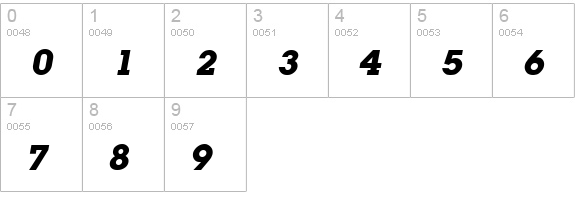
Lapland ExtraBold Italic is an extra-heavy, attention-grabbing, italic variant in the Lapland typeface family \xE2\x80\x94 well suited to high-impact headlines, posters, and bold branding.
Lapland ExtraBold Italic font is a bold and versatile typeface that exudes confidence and modernity. Its striking and dynamic design captures attention and makes a powerful statement in any project or design. The italic style adds a touch of elegance and sophistication, making it perfect for headlines, titles, and bold statements. With its beautifully crafted letterforms and unique character shapes, Lapland ExtraBold Italic font stands out from the crowd and adds a sense of personality and creativity to any design. Its strong and bold strokes create a sense of movement and energy, while the italic style adds a sense of fluidity and grace. But what sets Lapland ExtraBold Italic font apart is that it is freely available to download at FontsMarket.com. Yes, you read that right. You can enhance your designs and make a bold statement without having to pay a dime. Whether you're a professional designer or a casual enthusiast, this font is accessible to all, allowing you to unleash your creativity without any limitations. So why wait? Download Lapland ExtraBold Italic font now from FontsMarket.com and elevate your designs to new heights. Whether you're designing a logo, creating a poster, or crafting a website, this font will make your work stand out and leave a lasting impression. Don't miss out on this incredible opportunity to have a powerful and stylish font at your fingertips, completely free of charge.